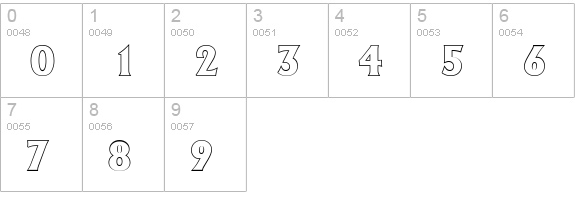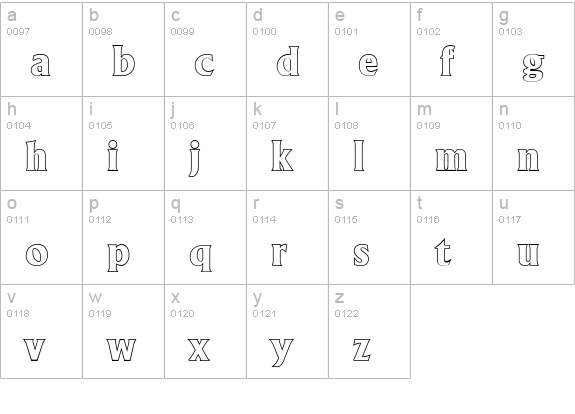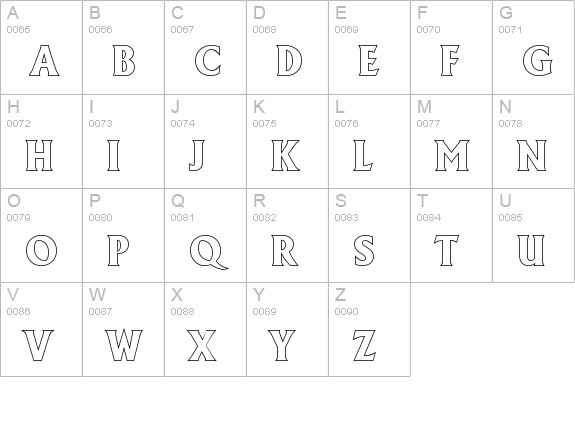
AdelonOutline-Xbold-Regular is the standard, neutral variant in the AdelonOutline typeface family \xE2\x80\x94 well suited to general body text, paragraphs, and standard typographic work.
AdelonOutline-Xbold-Regular is a striking and modern typeface that exudes confidence and elegance. With its bold and distinctive outline design, this font is perfect for making a statement in headlines, logos, posters, and other design projects. The sharp lines and clean shapes of AdelonOutline-Xbold-Regular give it a contemporary and sophisticated look that is sure to capture attention. Best of all, AdelonOutline-Xbold-Regular is available for free download at FontsMarket.com. This means you can easily access this stylish font and use it in your projects without any cost. Whether you're a designer looking to add a touch of sophistication to your work or a business owner in need of a standout font for branding, AdelonOutline-Xbold-Regular is the perfect choice. Download it today and elevate your designs with this eye-catching typeface.